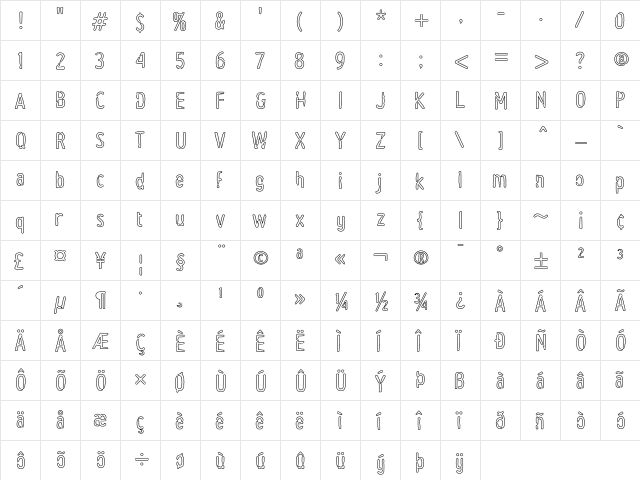
Bevel BrokenOutline
Design Context for Bevel Typeface
Bevel brings ornamental detail and strong personality to headlines and identities, where visual impact matters more than quiet functionality.
Font Pairing: Pair with a clean neutral sans-serif for body copy to let Bevel's character lead without overwhelming the composition.
Pro Tip: Treat Bevel as the centrepiece of your typographic hierarchy. One strong heading set in a decorative face can carry an entire layout.